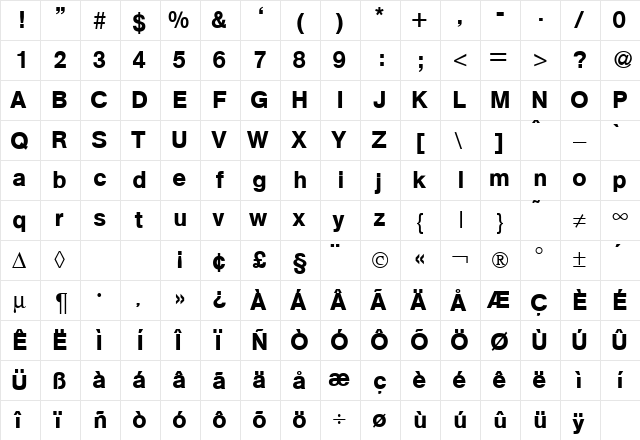
AtkinsMedium Regular
Design Context for AtkinsMedium Typeface
AtkinsMedium is a composed and adaptable typeface that performs quietly and consistently across a wide range of design contexts.
Pro Tip: Use AtkinsMedium in both headline and body roles to test its range before committing to a single application.